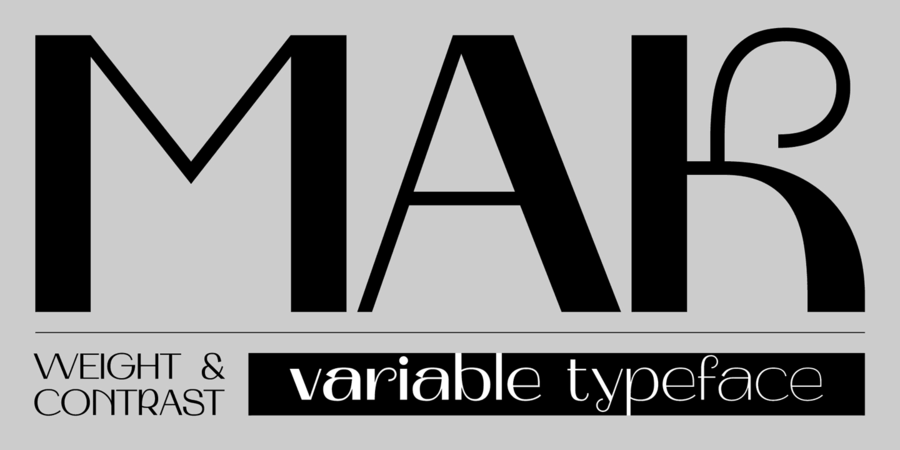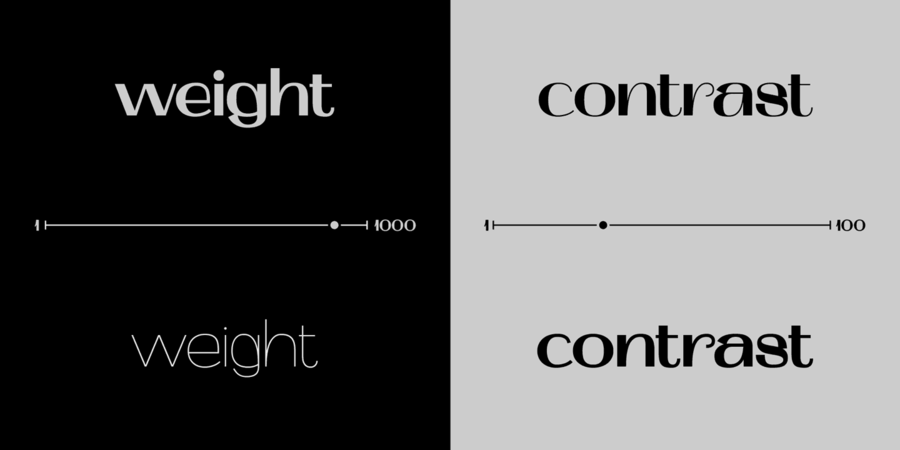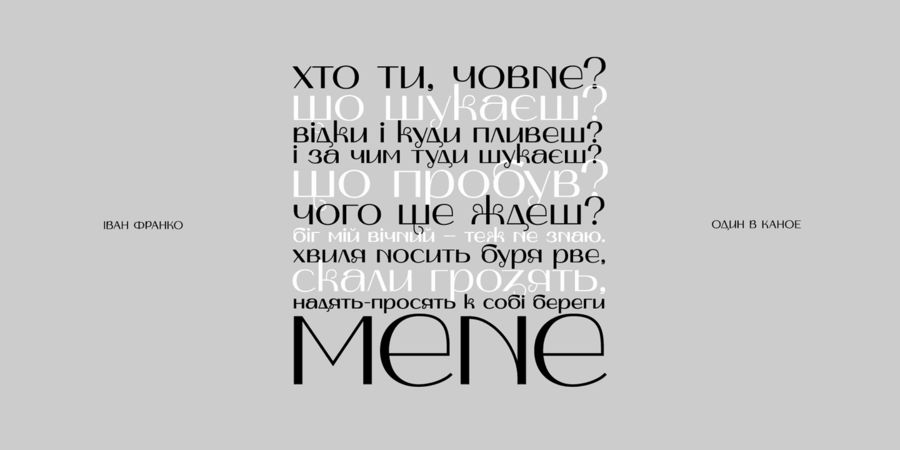
About Mak Variable version of popular Ukrainian font Mak. This is a display typeface with Ukrainian feeling inspired by Ukrainian music.
This is a big update of the first free two font styles of Mak (SemiBold High & Black High) that were created in 2019 and become widespread among free display fonts. The big update wasn't been only adding more weights and contrasts but also changing a lot of glyphs and adding new ones. Now Mak supports all Latin-based languages and European Cyrillic.
Experiments with historical forms, contrasts, and daring shapes helped to create a new image of Ukrainian Cyrillic and Latin based on it.
The typeface was designed by Valentyn Tkachenko in 2019-2022.
Associations for font family Mak VariableTypeface personality and character:
artistic, kind, rhythmic, informal, playful, glad, interesting, original, provocative, distinctive, affable, alive, cool, friendly, good-natured, fanciful, funny, extraordinary, major, frivolous, dynamic, strange, happy, creative, nice, exotic, youth, witty, experimental, Vintage, nonconformist, flexible, fashionable, spectacular, refined, high-quality, lamp, bright, summer, curved
Typeface associated with activities:
entertainment, souvenir, flowerbed, game, recreation, celebration, summer, children's book, animation, Cartoon, birthday, holiday, humor, design, cafe, interior, clothes, store, coffee, graphics, illustration, gifts, stationery, adventures, partying, party, cocktail, alcohol, bar, tourism, cinema, musical Typeface associated with age: